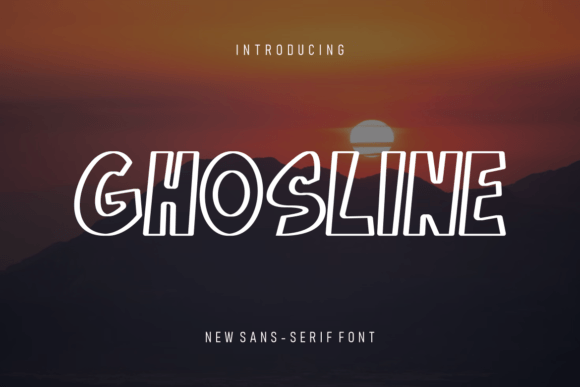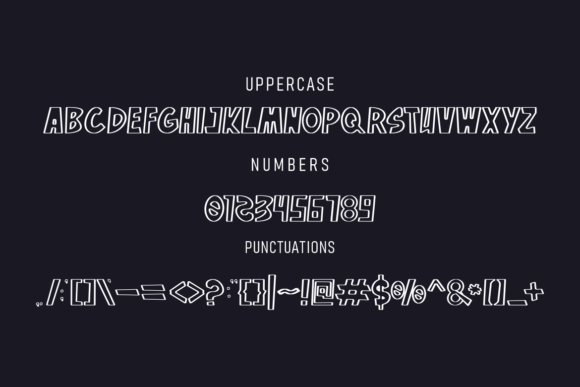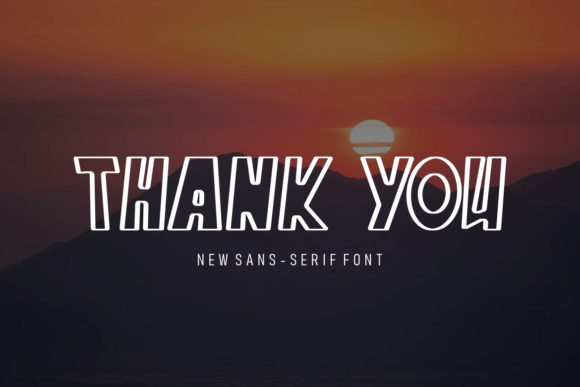
The Elegance of Ghosline Font: A Designer’s New Best Friend
An Honest Review of Ghosline Font
- ✨ Modern and elegant look: Ghosline Font has a sleek, outlined sans serif design that instantly elevates any project.
- ✅ Versatility: It’s perfect for a wide range of projects, from signatures, stationery, and logos to wedding designs, typography quotes, magazine or book covers, website headers, clothing, branding, and packaging design.
- 💡 Easy to read: Despite its elegant look, Ghosline Font remains highly legible, making it suitable for both headings and body text.
While Ghosline Font is amazing, there are a few things to keep in mind: 🤔
- ⚠️ Limited use in long texts: While it’s legible, Ghosline Font’s outlined design might not be the best choice for very long texts, as it can be a bit tiring to read.
- ⚠️ Requires careful color selection: The outlined design can sometimes make the text appear delicate, so choosing the right color and background is crucial.
Ghosline Font comes with a range of OpenType features and glyphs that can enhance your designs:
- Stylistic Alternates: Offers variations of letters and numbers for more customization.
- Ligatures: Automatically replaces certain letter combinations with more aesthetically pleasing ligatures.
- Glyphs: Provides access to decorative elements and alternate characters.
The Backstory of Ghosline Font
Ghosline Font was designed with the intention of creating a modern, elegant, and versatile typeface. Inspired by the minimalist and sophisticated designs often seen in fashion and luxury brands, its creator aimed to produce a font that could be used across various mediums, from digital interfaces to print materials. The result is a font that feels both contemporary and timeless.
Q: Is Ghosline Font suitable for body text?
A: While Ghosline Font is legible and elegant, it’s primarily designed for headings and titles. For long-form body text, you might want to pair it with a more traditional serif or sans serif font.